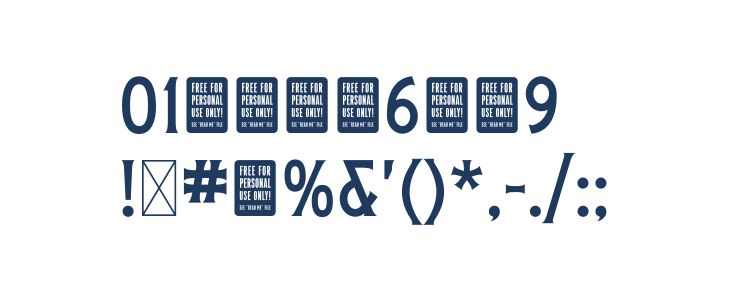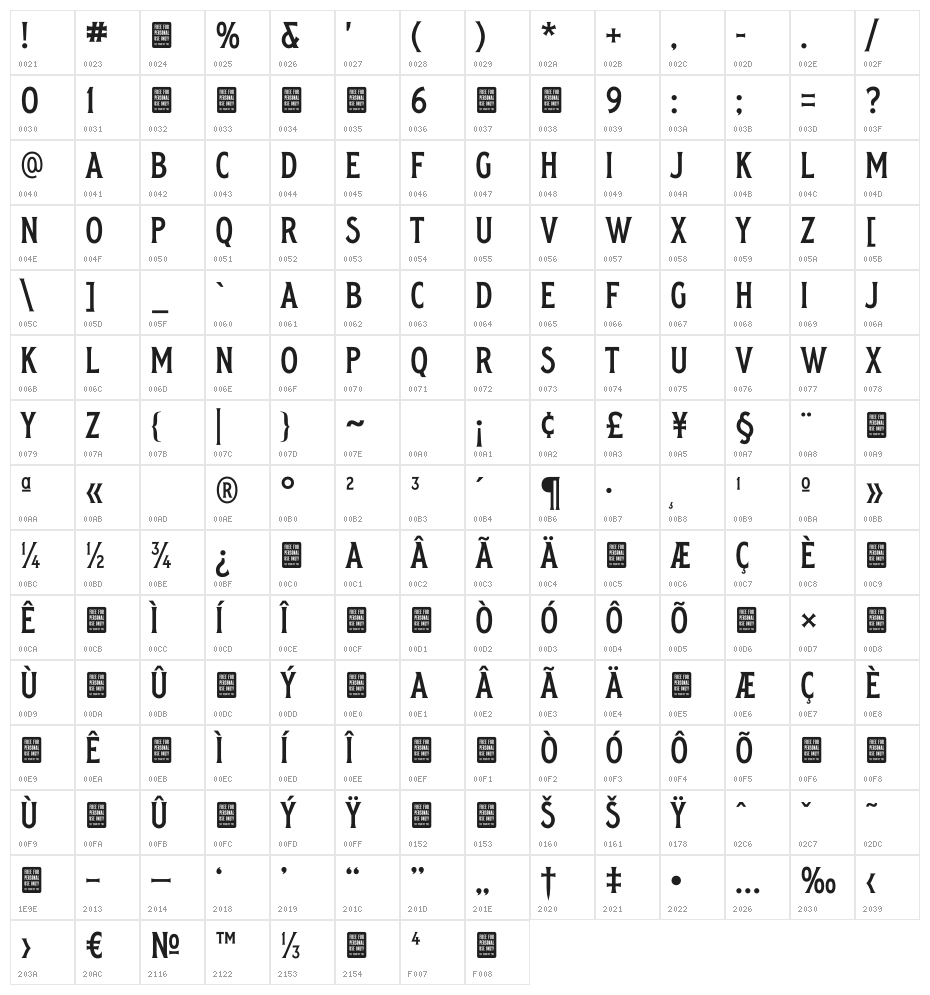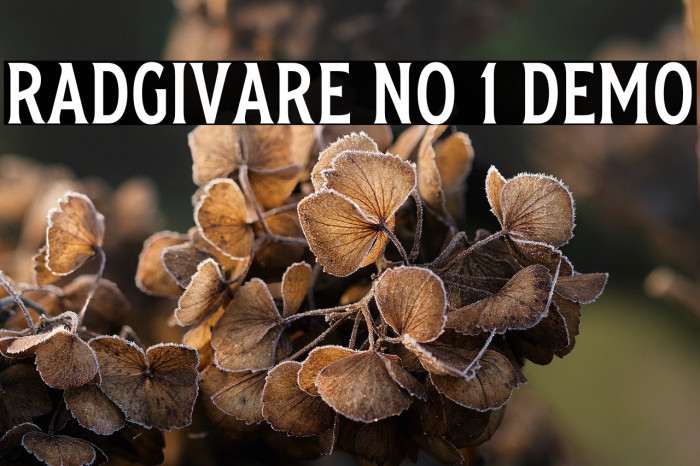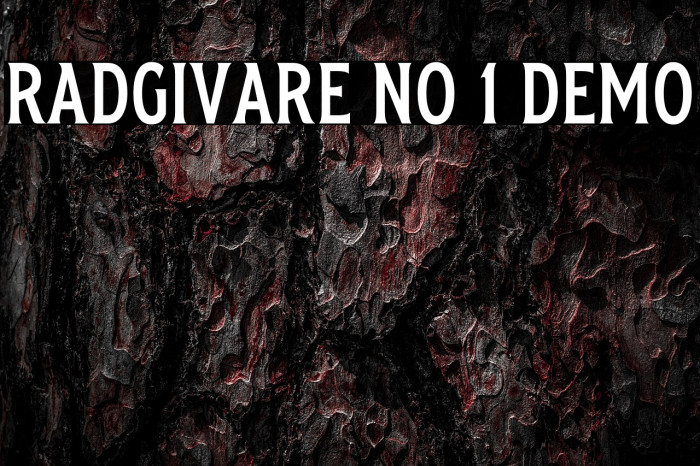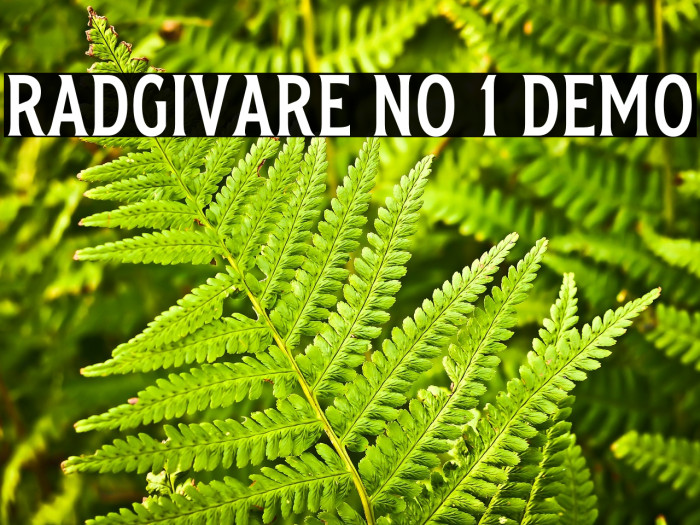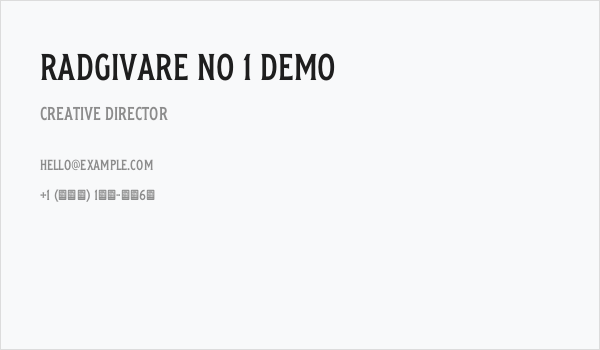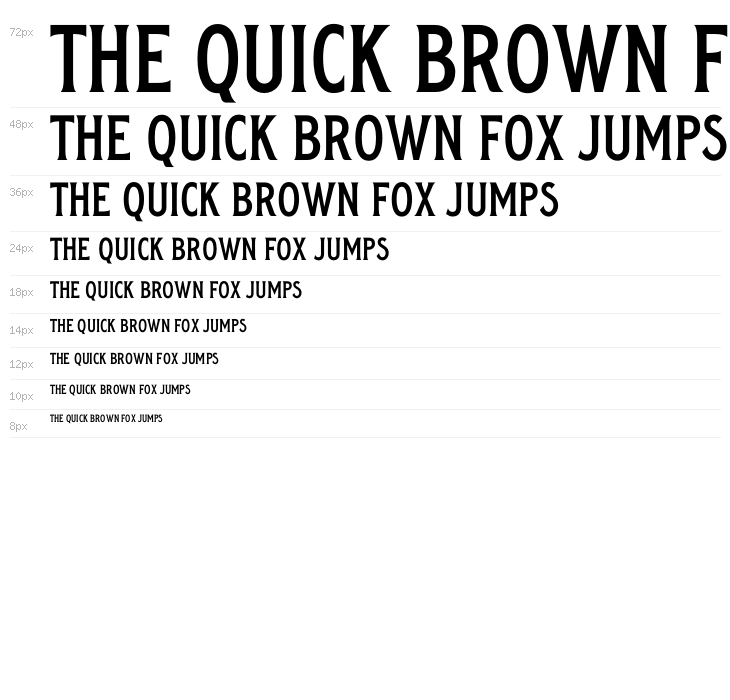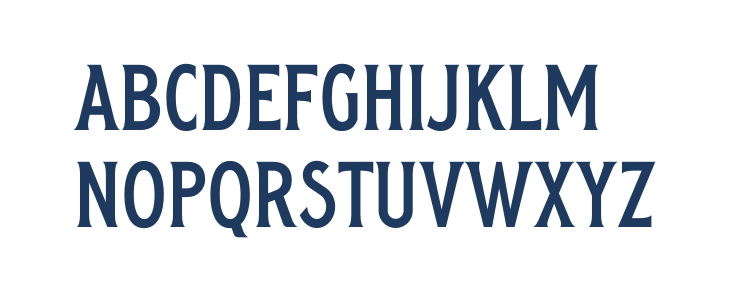
Radgivare No 1 Demo Font
Radgivare No 1 Demo Description
This font features a bold and impactful design with strong, thick strokes that give it a commanding presence. The characters are well-defined with a slight curvature, adding a touch of elegance to the overall robust appearance. The uppercase letters are particularly striking, with a consistent height and width that ensure readability. The lowercase letters maintain the same boldness, providing a cohesive look across different text cases. Numerals are equally bold, making them stand out effectively. Special characters are included, offering versatility for various design needs. The font's style is both modern and classic, making it suitable for a wide range of applications.
| Overall Style | Modern, Classic |
| Proposed Projects | Ideal for headlines, posters, branding materials, and any project requiring a strong visual impact. |